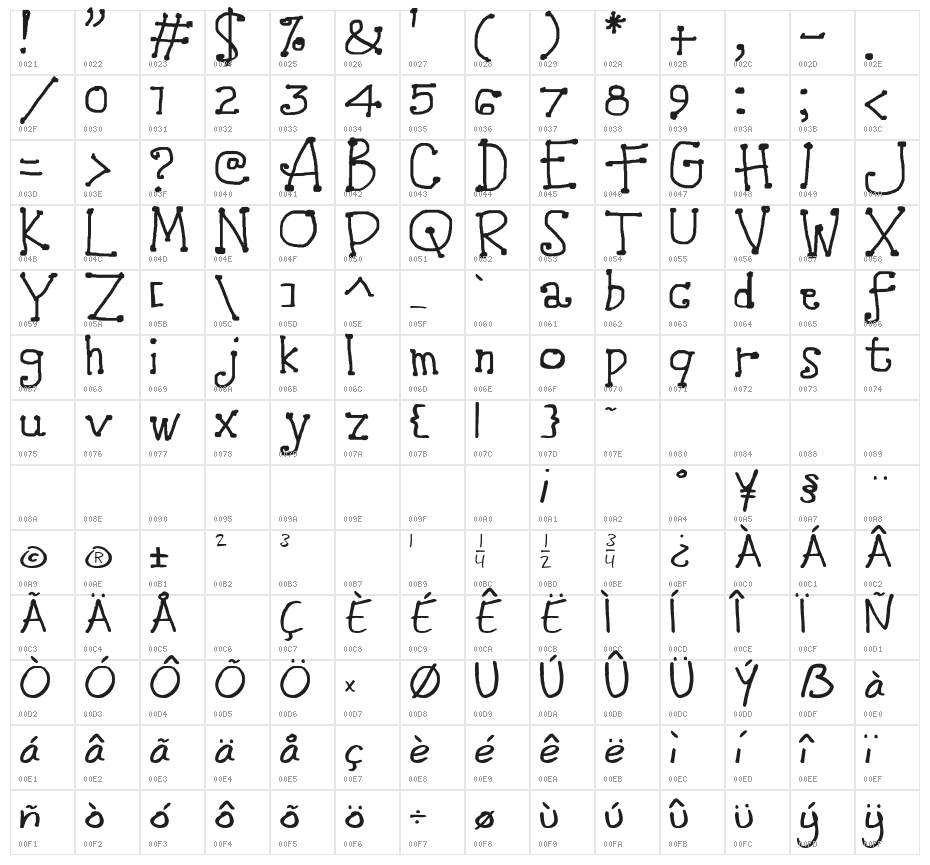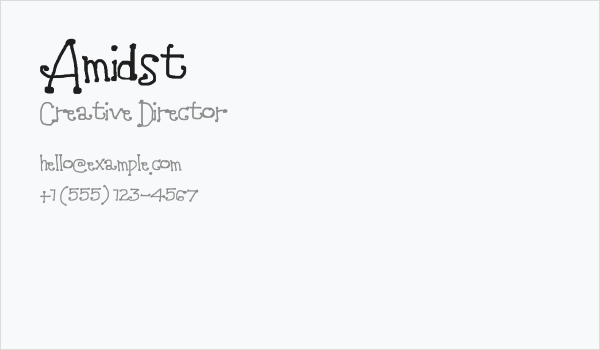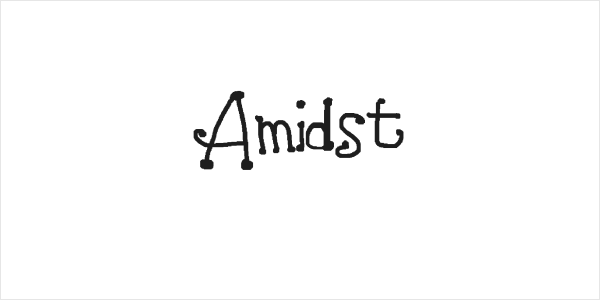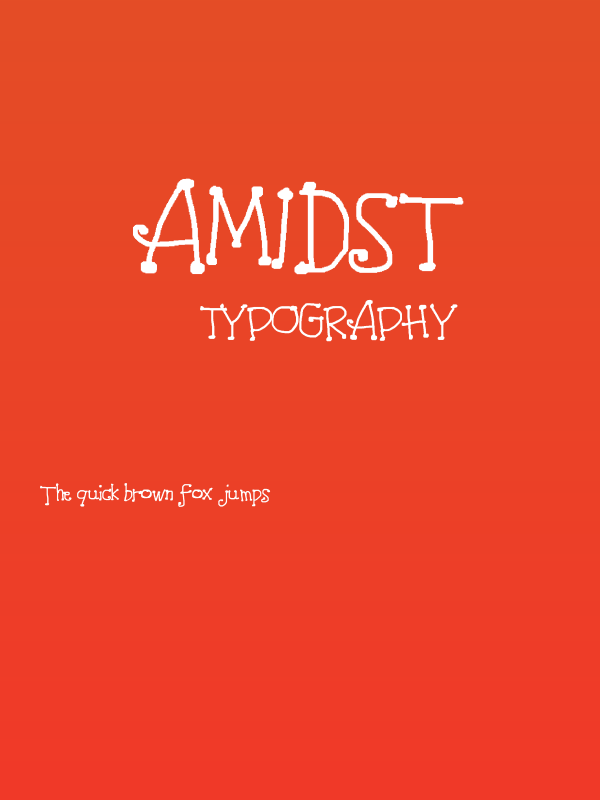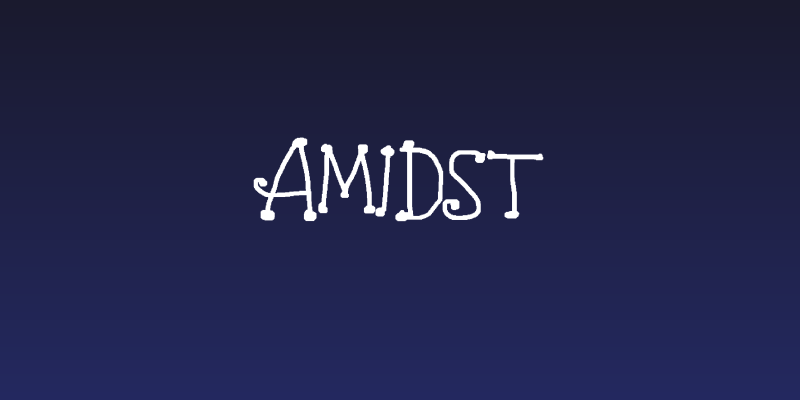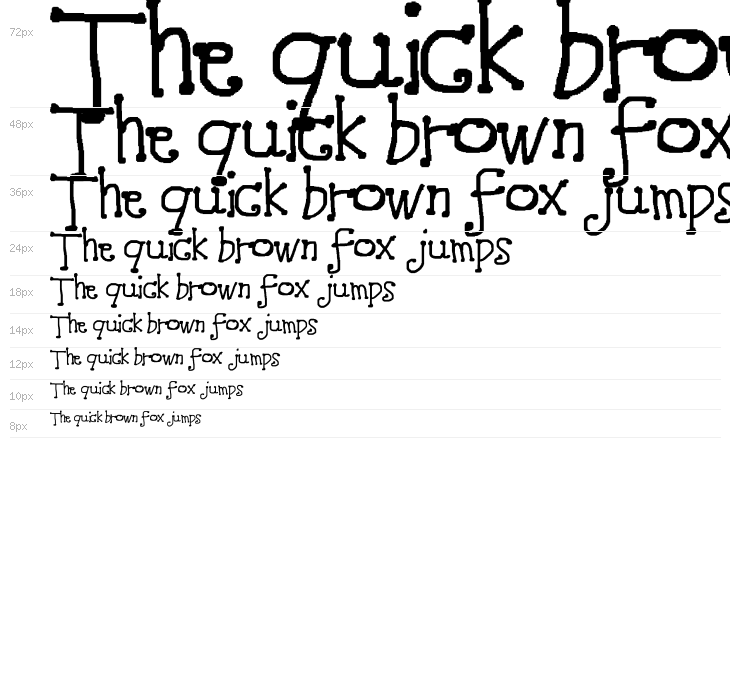
Amidst Font
Amidst Description
This font features a playful and whimsical design, characterized by irregular strokes and a hand-drawn appearance. The letters are formed with uneven lines and varying thickness, giving it a unique and artistic feel. The uppercase letters are bold and prominent, while the lowercase letters maintain a consistent style with a slightly more compact form. Numbers and special characters follow the same quirky and informal style, making the font suitable for creative and casual projects. The overall look is reminiscent of a child's handwriting or a doodle, adding a sense of fun and creativity to any design.
| Proposed Projects | Ideal for children's books, playful branding, greeting cards, and creative posters. |